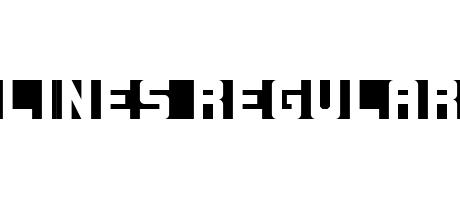
Lines
By Caitlin Bowden
Lines Regular: A bold, geometric sans-serif typeface. Its blocky, almost monospaced letters create a strong, graphic impact. The sharp lines and consistent weight suggest stability and precision. The slightly varied letter widths hint at a handcrafted feel, adding personality to its rigorous structure. Overall, it's a font that commands attention with its clean, powerful presence.